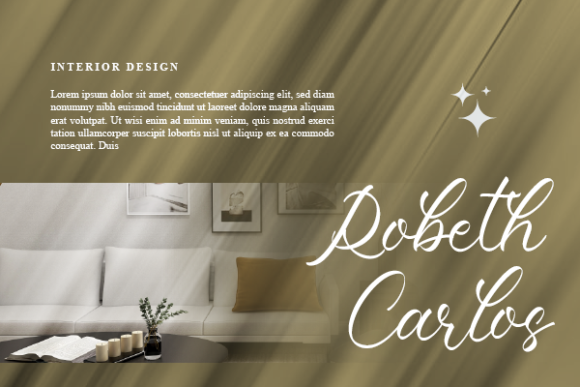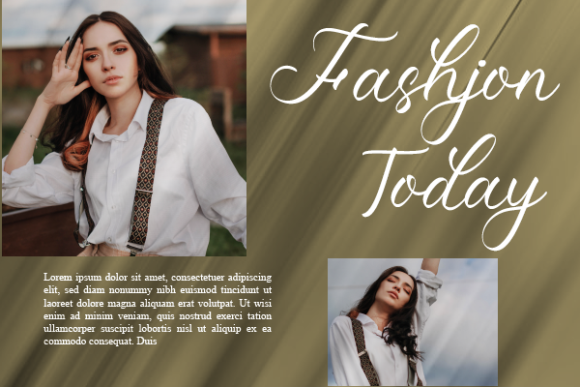
Sarah Amanda Font
db-ku.com - Script & Handwritten -- Sarah Amanda is a stylish and dainty script font. It is suitable for any projects such as: logos, branding projects, label, photography, watermark, special events, and all your other lovely projects that need a beautiful script taste.